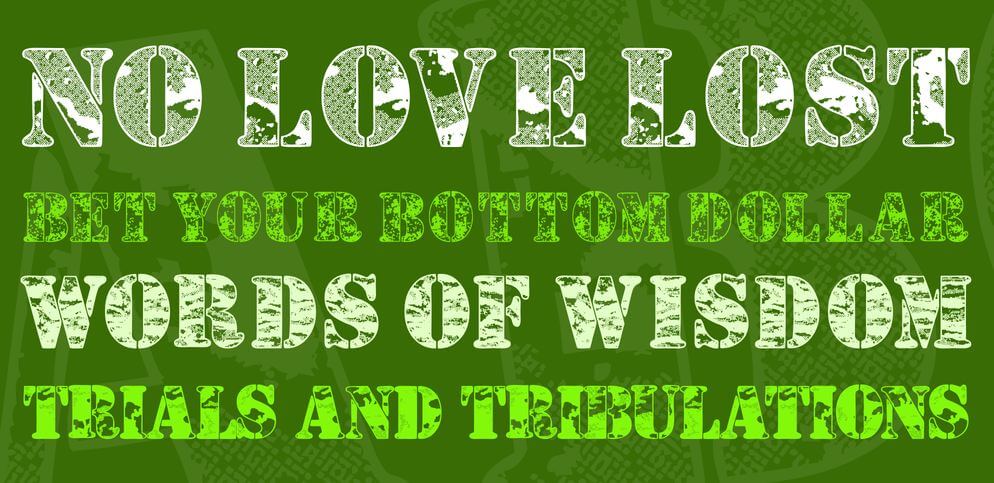
Introducing camouflage jungle font. That is, frequently, a face supported the writing from comedian magazines. This casual although the readable face has attempted very hip with a big style of parents.
Although it is probably visible as a novelty font that is similar to dubai font, that’s first-class for titles, it is also notably decipherable on-display at little sizes, creating it a precious text face.